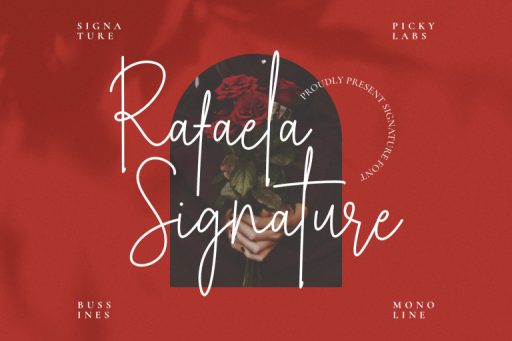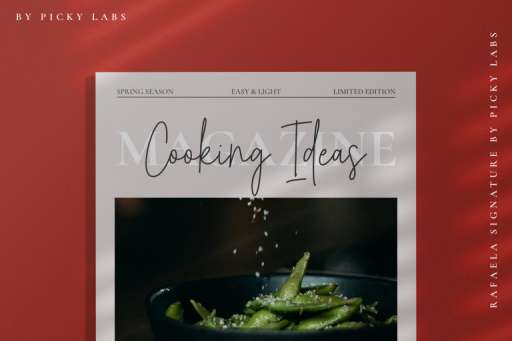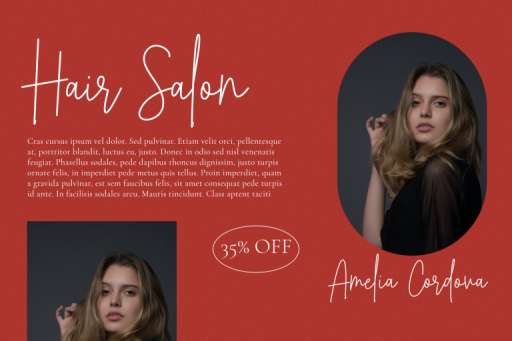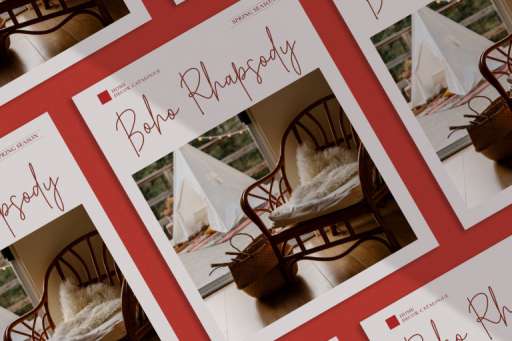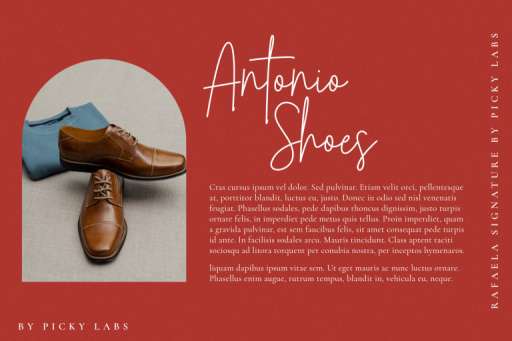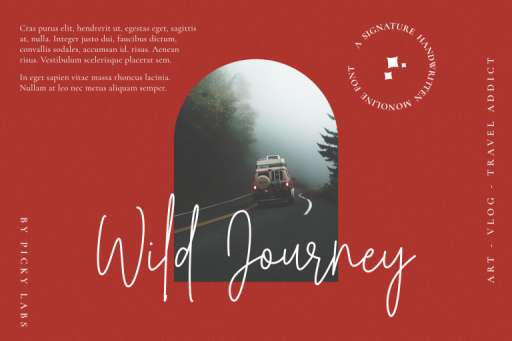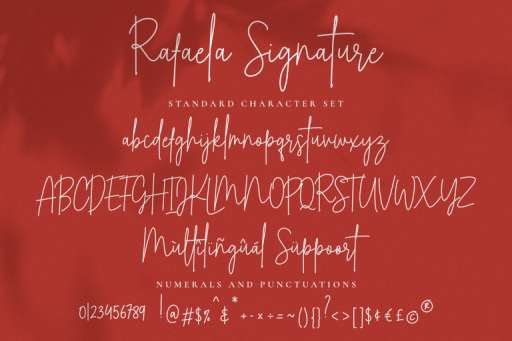
Rafaela Signature Font From Jimtype Studio
Rafaela Signature Font
Rafaela – Signature Business Font
Rafaela Signature font is a simple script monoline with elegant style. Its elegant charm makes it appear wonderfully down-to-earth, readable, and, ultimately, incredibly versatile.
Rafaela Signature is a great choice for branding, product design, advertising, social media project, logos, business cards, posters, blog posters, and many other design projects.